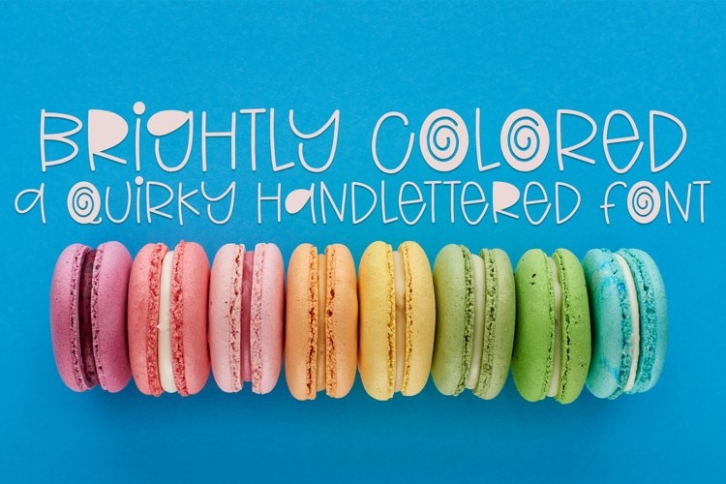
Brightly Colored is a great font that was designed by plusstore. Imagine the amount of combinations you can create using this font! The archive is 15.25 MB and it was released on April 3, 2022. Brightly Colored looks beautiful on wedding invitations, greeting cards, logos, posters, labels, t-shirt designs, logos, business cards and is perfect for use in ink or watercolor works, fashion, magazines, packaging and food menus, children's books and more!